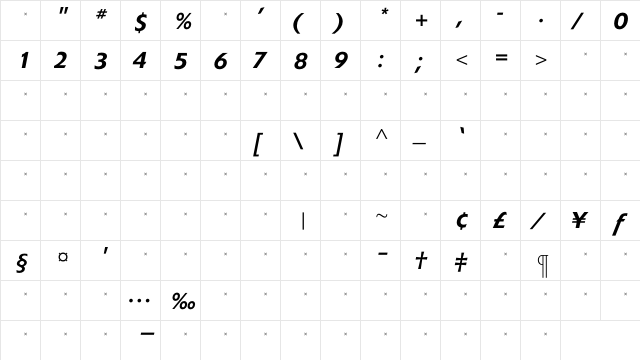
ExtensionMediumItalicTab Regular
Design Context for ExtensionMediumItalicTab Typeface
ExtensionMediumItalicTab is a composed and adaptable typeface that performs quietly and consistently across a wide range of design contexts. The dynamic lean of this cut emphasises speed and emphasis in any layout.
Pro Tip: Use ExtensionMediumItalicTab for emphasis, pull quotes, and subheadings where its slanted energy can add rhythm to the layout.